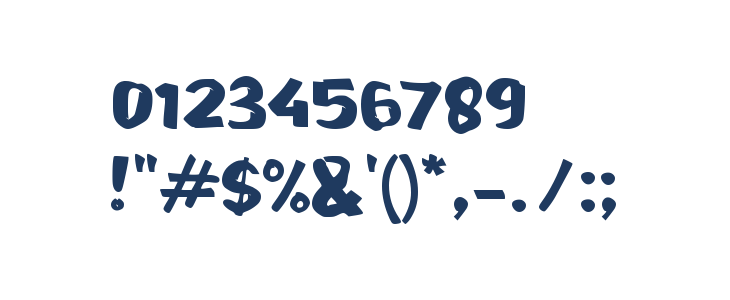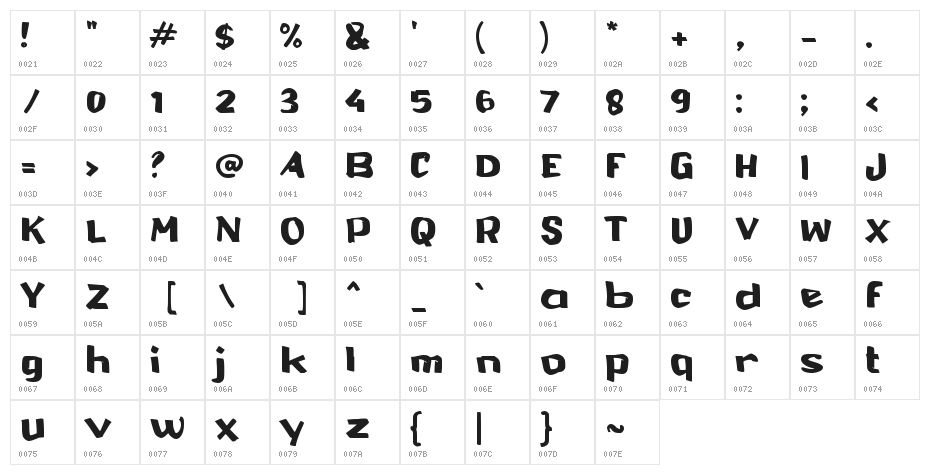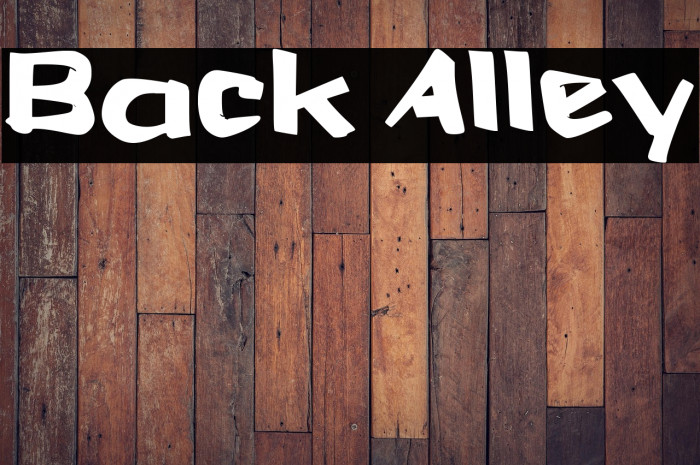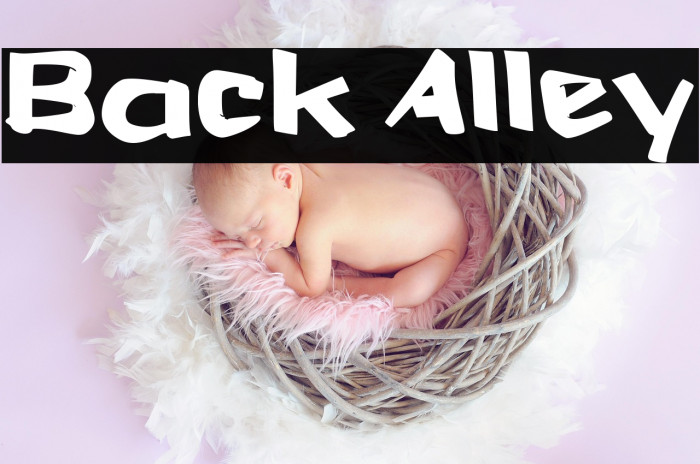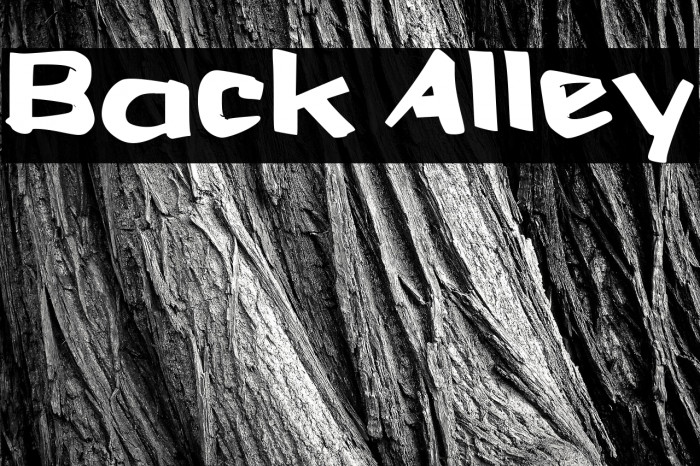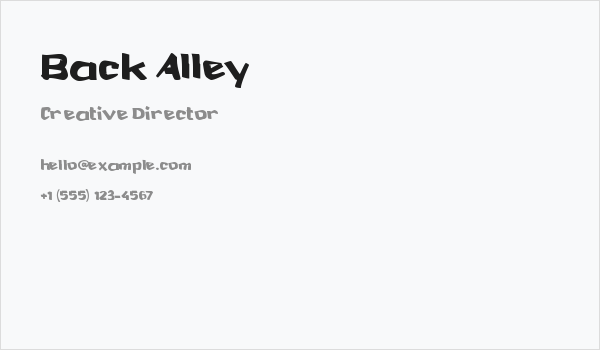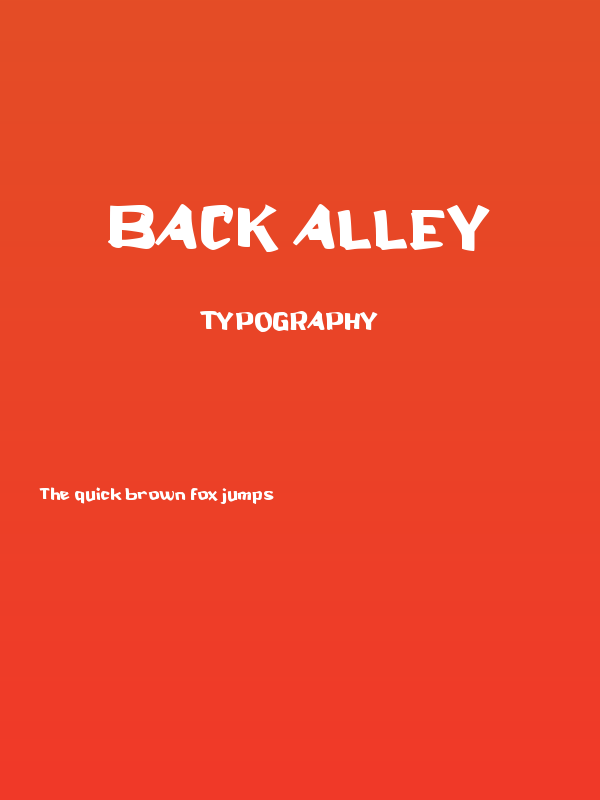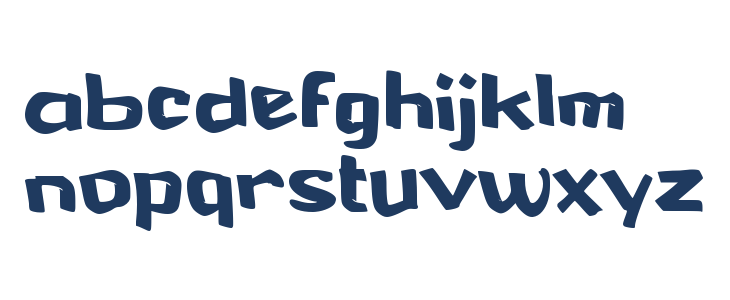
Back Alley Font
Back Alley Description
This font exudes a bold and playful character, with a hand-drawn, graffiti-like style that captures attention. The letters are irregular and dynamic, giving a sense of movement and energy. The uppercase and lowercase characters maintain a consistent style, with thick strokes and uneven edges that add to its informal and artistic appeal. Numbers and special characters follow the same design ethos, making the font versatile for creative projects. Its unique style is reminiscent of street art, making it ideal for designs that require a touch of urban flair.
| Overall Style | Urban, Playful, Artistic |
| Use Case | Headlines, Posters, Logos |
| Proposed Projects | Perfect for street art designs, posters, album covers, and any project needing an urban, edgy look. |